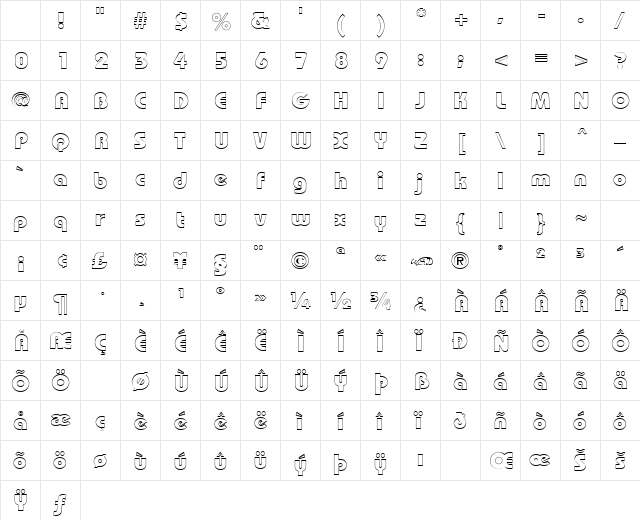
BordeauxBlackOutline normal
Style: normal
BordeauxBlackOutline Family
BordeauxBlackOutline normal
BordeauxBlackOutline normal Font Preview
Design Context for BordeauxBlackOutline
BordeauxBlackOutline is built around its visual character rather than neutral utility - its distinctive forms are designed to make an impression at display sizes.
Font Pairing: Pair with a clean neutral sans-serif for body copy to let BordeauxBlackOutline's character lead without overwhelming the composition.
Pro Tip: Use BordeauxBlackOutline exclusively at display sizes - it was designed to be seen, not read at length. Let a neutral companion handle body copy.